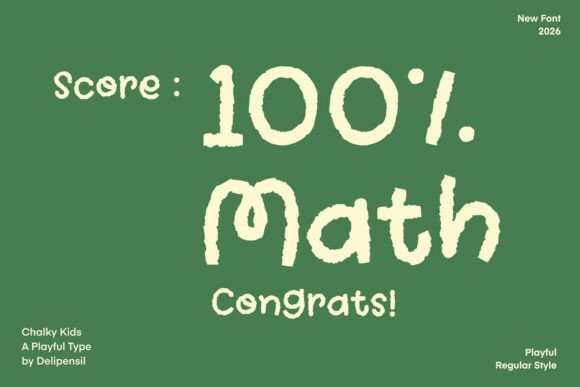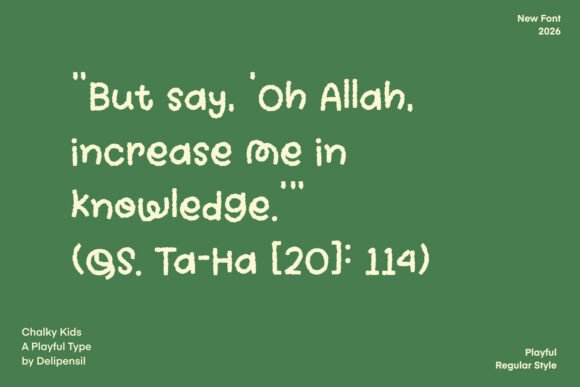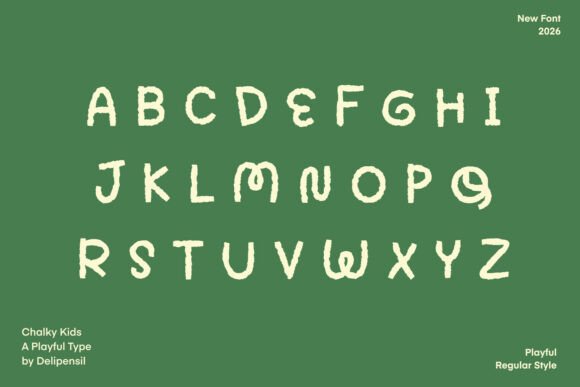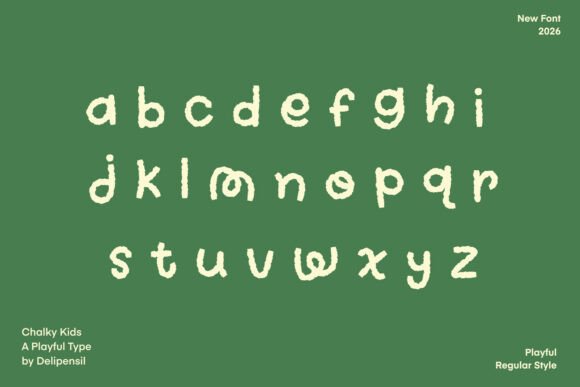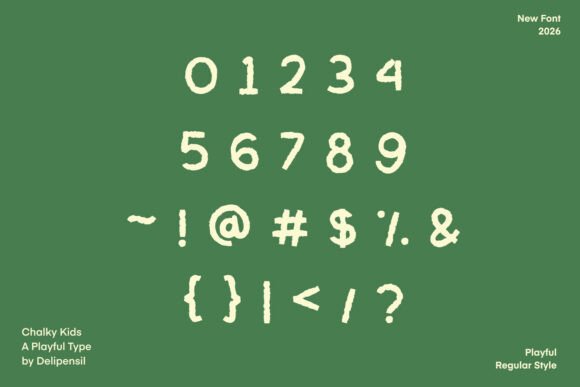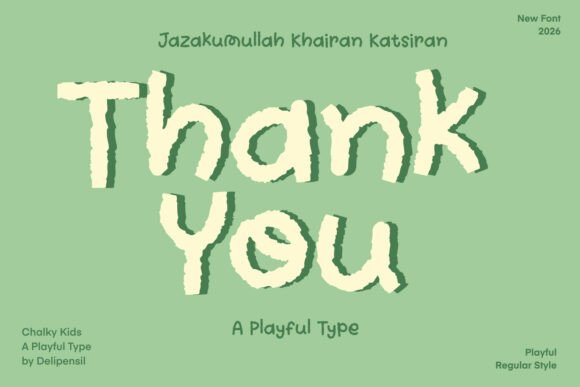
Unleashing Childhood Creativity: The Magic of Chalky Kids Font
Remember the joy of standing in front of a freshly painted blackboard, feeling the thrill of creating something new and imperfect? For many of us, those carefree moments of childhood are etched in our memories, and the memories of scribbled chalk drawings are an integral part of that nostalgia. Now, designers can tap into that same sense of wonder with the Chalky Kids Font.
This charming handwritten font is inspired by the rough, textured strokes of children’s chalk drawings, bringing a natural, cheerful, and youthful feel to any design. Whether you’re working on school-themed projects, kids’ products, or educational materials, Chalky Kids Font is the perfect tool to capture the essence of childhood creativity and imagination.
Key Features of Chalky Kids Font
- Font Family: Chalky Kids
- Unique Characteristics: Hand-drawn, playful, and whimsical design, perfect for children’s books, educational materials, and creative projects
- Character Set: Includes a wide range of characters, including Latin, Cyrillic, and Greek alphabets, as well as punctuation and symbols
Chalky Kids Font Review
As a designer, I had high hopes for the “Chalky Kids Font”. At first glance, its playful, handwritten aesthetic is sure to capture the attention of parents and educators looking for a fun, child-friendly font. ✨ One of the standout features of this font is its versatility – it’s perfect for creating engaging lesson plans, adorable invitations, and even cheerful social media graphics.
- ✨ Customizable: The font comes in a range of colors and styles, making it easy to tailor to your specific design needs.
- ✨ Friendly: The font’s childlike quality is infectious, adding a warm and approachable touch to any design.
- ✨ Scalable: Whether you’re working on a small flyer or a large billboard, the font remains legible and visually appealing.
However, I do have some reservations about the font’s limitations. ⚠️ One major concern is the font’s lack of clarity in smaller point sizes. While it looks charming at larger sizes, it can become difficult to read at smaller scales. Additionally, the font may not be suitable for formal or professional designs, as its playful nature can come across as unprofessional.
Overall, I would recommend the “Chalky Kids Font” for educational and creative projects where a lighthearted, child-friendly tone is desired. While it may not be the best choice for every design project, it’s a great option for those looking to add some personality and whimsy to their work.
Getting the Most Out of Chalky Kids Font
For best results, use Chalky Kids Font for titles and headings, as it is a bold and eye-catching font.
Experiment with different font sizes and colors to create a unique and engaging visual effect.
Chalky Kids Font is perfect for:
Children’s party invitations and decorations
Education and learning materials
Fun and playful social media graphics